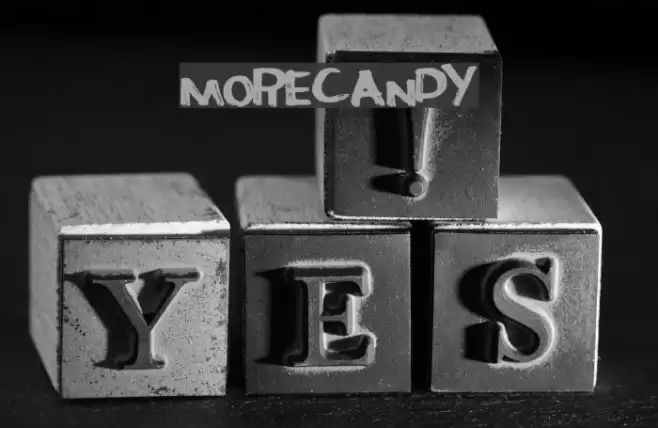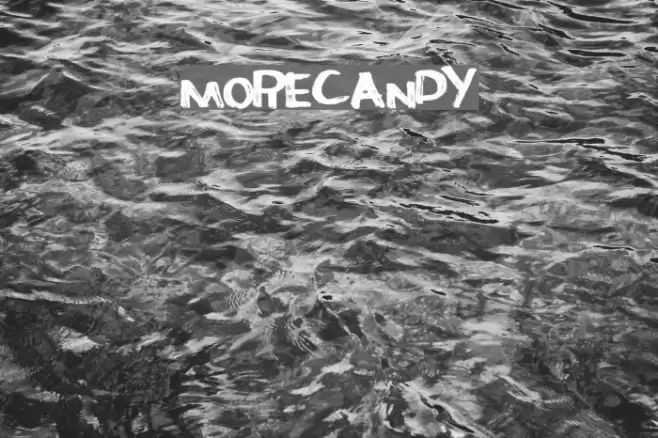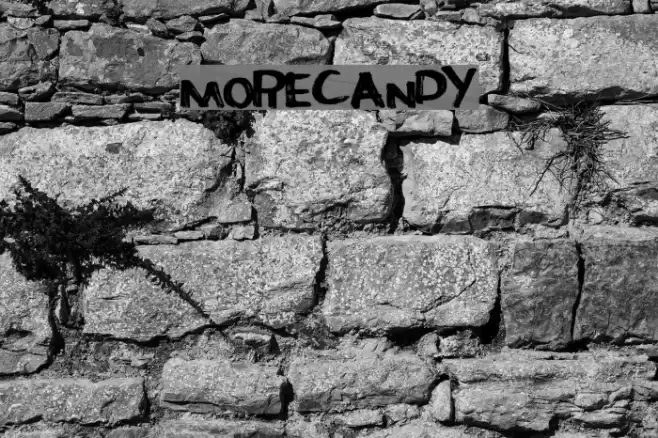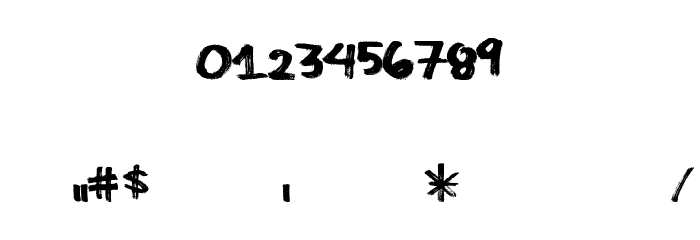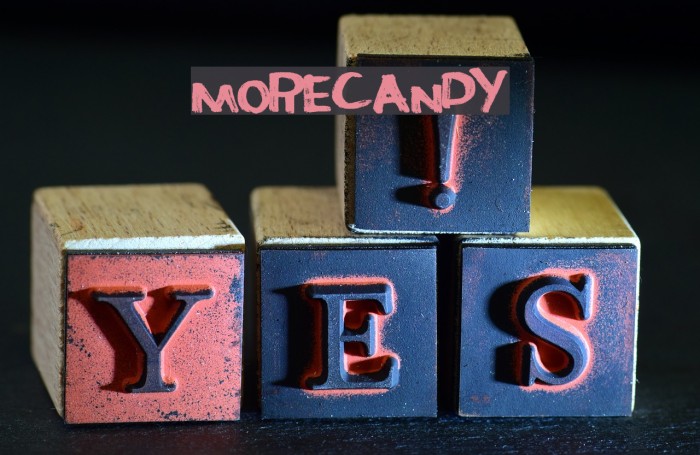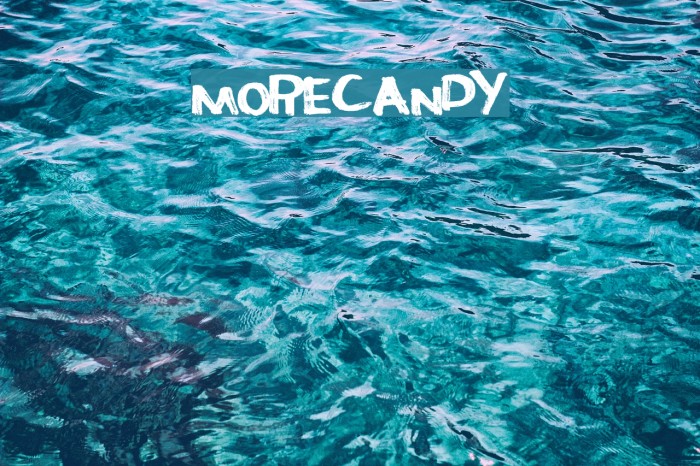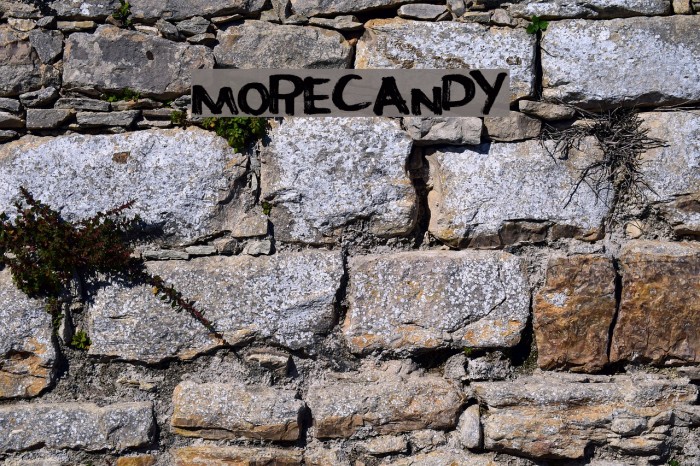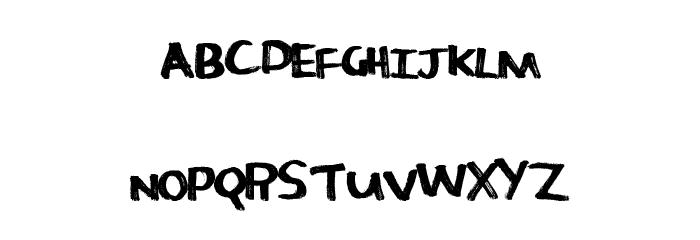
MoreCandy Font
MoreCandy Description
This font features a playful and bold handwritten style, characterized by its thick strokes and slightly irregular letterforms that give it a casual, friendly appearance. The uppercase and lowercase letters maintain a consistent weight, contributing to its cohesive look. The numerals and special characters are designed to match the overall aesthetic, ensuring uniformity across different text elements. The font's informal and approachable nature makes it ideal for projects that require a personal touch or a sense of fun and creativity.
A bold, playful handwritten font with thick strokes and an informal style from Uncategorized fonts.
- Proposed Projects: Ideal for children's books, playful branding, greeting cards, and casual invitations.
- Overall Style: Playful
- Use Case: Logos, Headlines, Informal Text